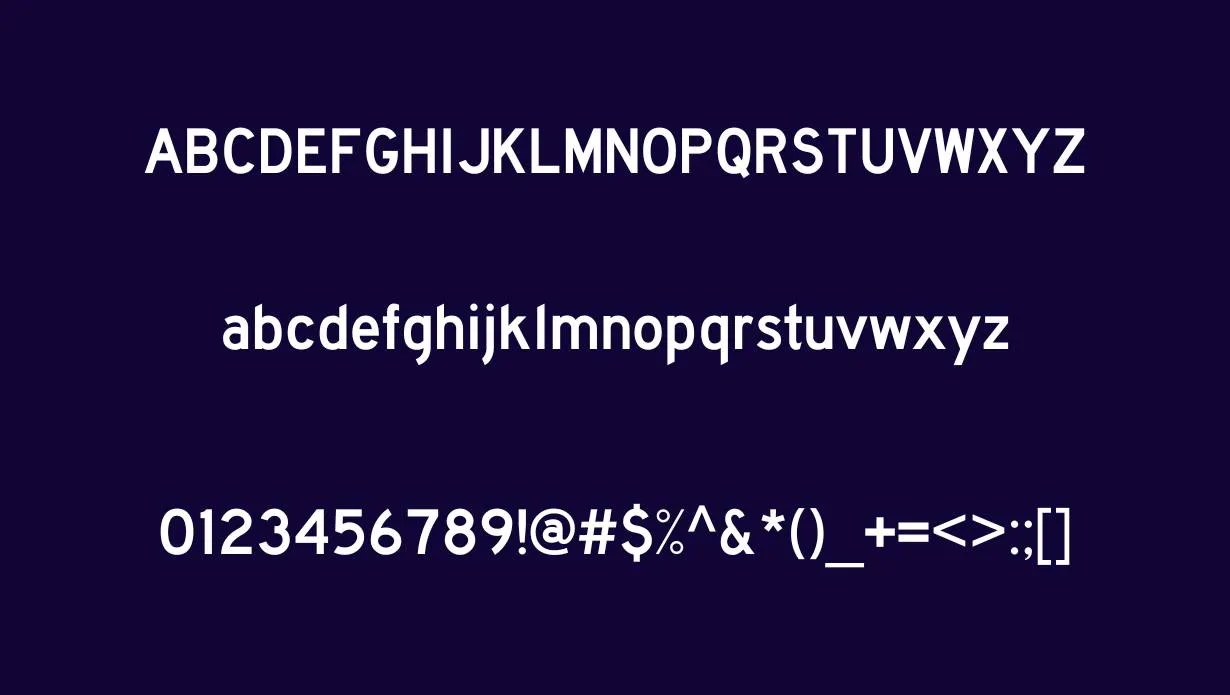
Have you ever encountered the mysterious Highway Intocable font? This unique typeface might be specially crafted for a particular brand or project, hinting at a strong link to highways or the concept of being untouchable.
Such customized fonts play a crucial role in showcasing the theme and personality of the brand they represent. Curious to learn more about this intriguing font? Keep reading to unveil the secrets behind Highway Intocable!
The font’s purpose could range from signage and branding for a highway-related project to convey a sense of exclusivity or uniqueness, as implied by the term.
View of Highway Intocable Font